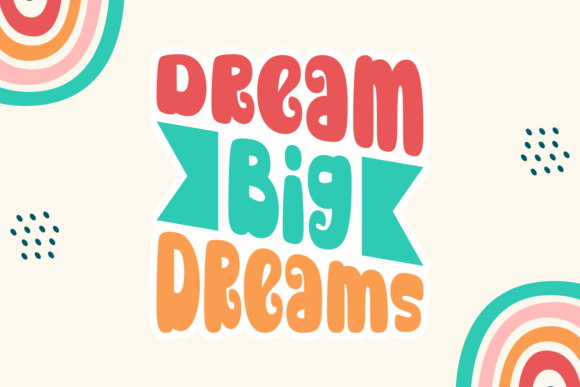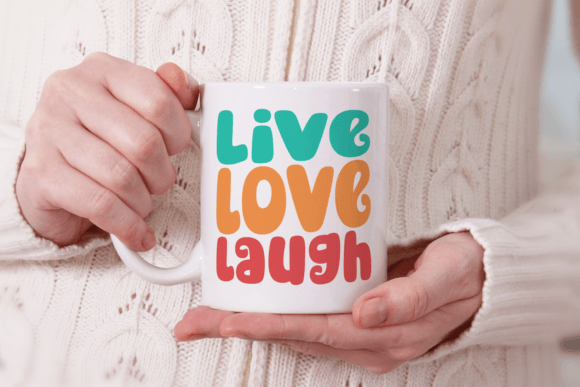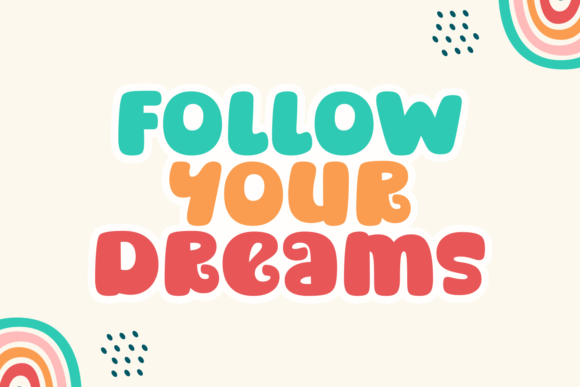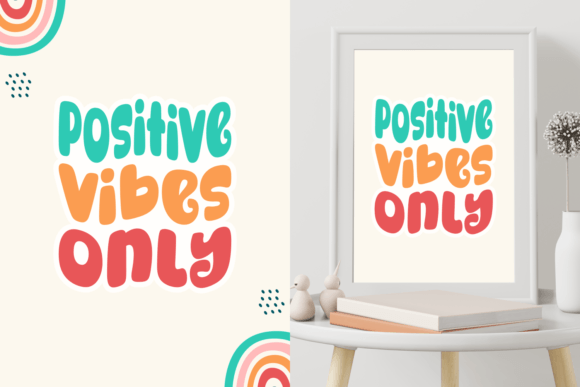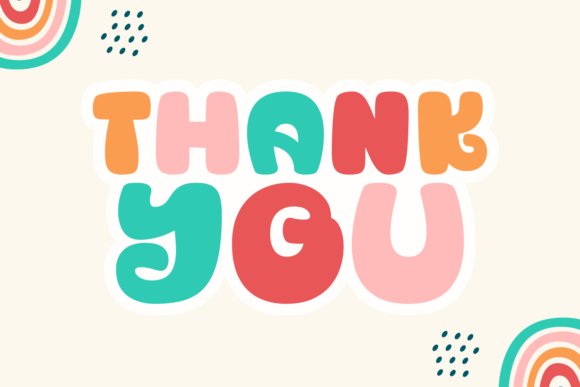
Introducing Curly Retro Font: The Ultimate Playful Display Font
Are you looking for a font that can add a touch of playfulness and nostalgia to your designs? Look no further than Curly Retro Font! This versatile and charming display font is perfect for a wide range of applications, from greeting cards and headlines to posters, packaging, and more.
What is Curly Retro Font?
Curly Retro Font is a carefully crafted display font that embodies the spirit of retro design. Its curly, swirly, and bouncy letters are sure to grab attention and add a dash of whimsy to any project. The font’s playful and carefree vibe makes it an excellent choice for designers and crafters who want to create eye-catching and engaging designs.
Key Features of Curly Retro Font
• Versatile: Curly Retro Font is suitable for a wide range of applications, from digital designs to print materials.
• Playful: The font’s curly and swirly letters add a playful touch to any design.
• Retro: The font’s nostalgic feel is perfect for designers who want to create vintage-inspired designs.
• Easy to use: Curly Retro Font is a straightforward font to use, even for beginners.
Perfect for a Wide Spectrum of Applications
Curly Retro Font is an excellent choice for various design projects, including:
• Greeting cards: Add a personal touch to your greeting cards with Curly Retro Font’s playful and curly letters.
• Headlines: Make your headlines stand out with Curly Retro Font’s bold and attention-grabbing style.
• Posters: Create eye-catching posters that showcase your creativity with Curly Retro Font.
• Packaging: Add a touch of whimsy to your product packaging with Curly Retro Font.
• Social media graphics: Use Curly Retro Font to create engaging social media graphics that will capture your audience’s attention.
Why Choose Curly Retro Font?
There are many reasons why Curly Retro Font stands out from other display fonts:
• Unique style: Curly Retro Font’s curly and swirly letters are unlike any other font on the market.
• High-quality design: The font is carefully crafted to ensure that it looks great in any size or application.
• Easy to read: Despite its playful style, Curly Retro Font is easy to read, making it perfect for body text and headlines.
Tips for Using Curly Retro Font
To get the most out of Curly Retro Font, here are some tips:
• Experiment with colors: Curly Retro Font looks great in a variety of colors, so don’t be afraid to experiment and find the perfect hue for your design.
• Mix and match: Combine Curly Retro Font with other fonts to create a unique and eye-catching design.
• Play with sizes: Curly Retro Font looks great in large and small sizes, so experiment with different sizes to find the perfect fit for your design.
Curly Retro Font is a versatile, playful, and retro display font that’s perfect for designers and crafters who want to add a touch of whimsy to their designs. With its curly, swirly, and bouncy letters, this font is sure to grab attention and make your designs stand out. Whether you’re creating greeting cards, headlines, or social media graphics, Curly Retro Font is an excellent choice. So why wait? Add Curly Retro Font to your projects today and see the amazing results for yourself!